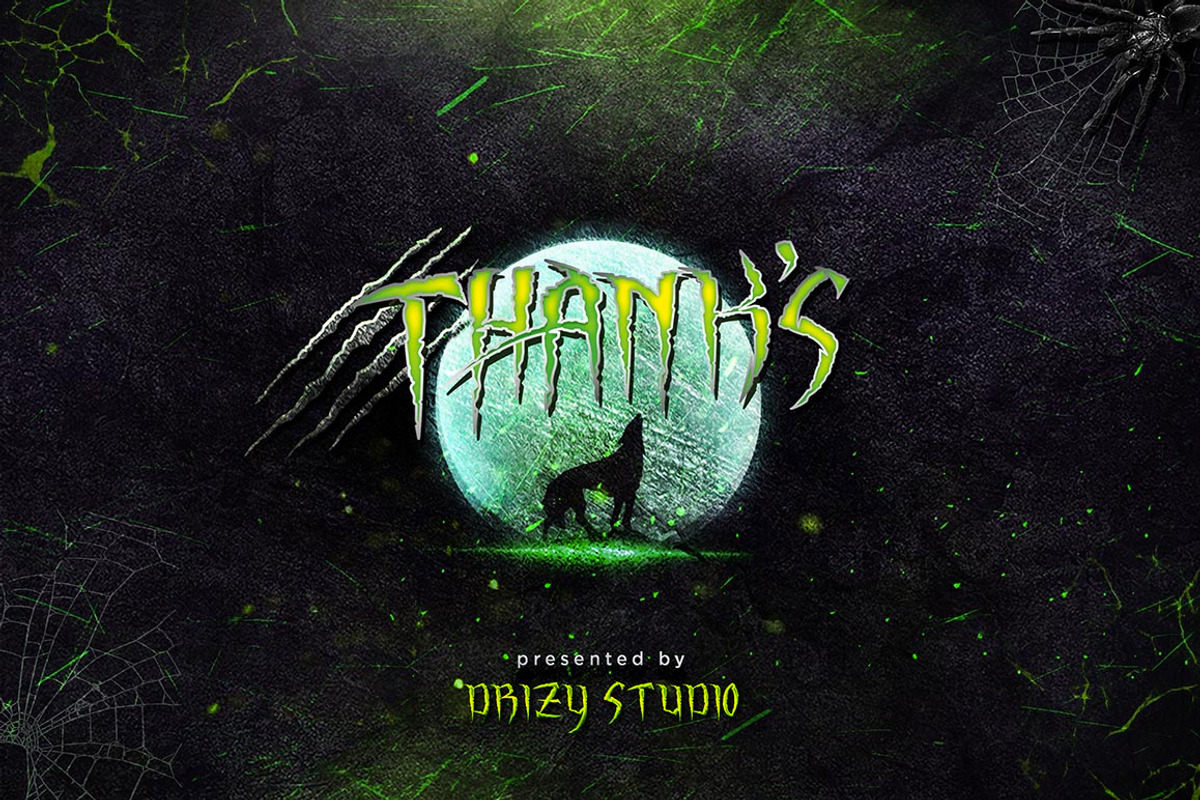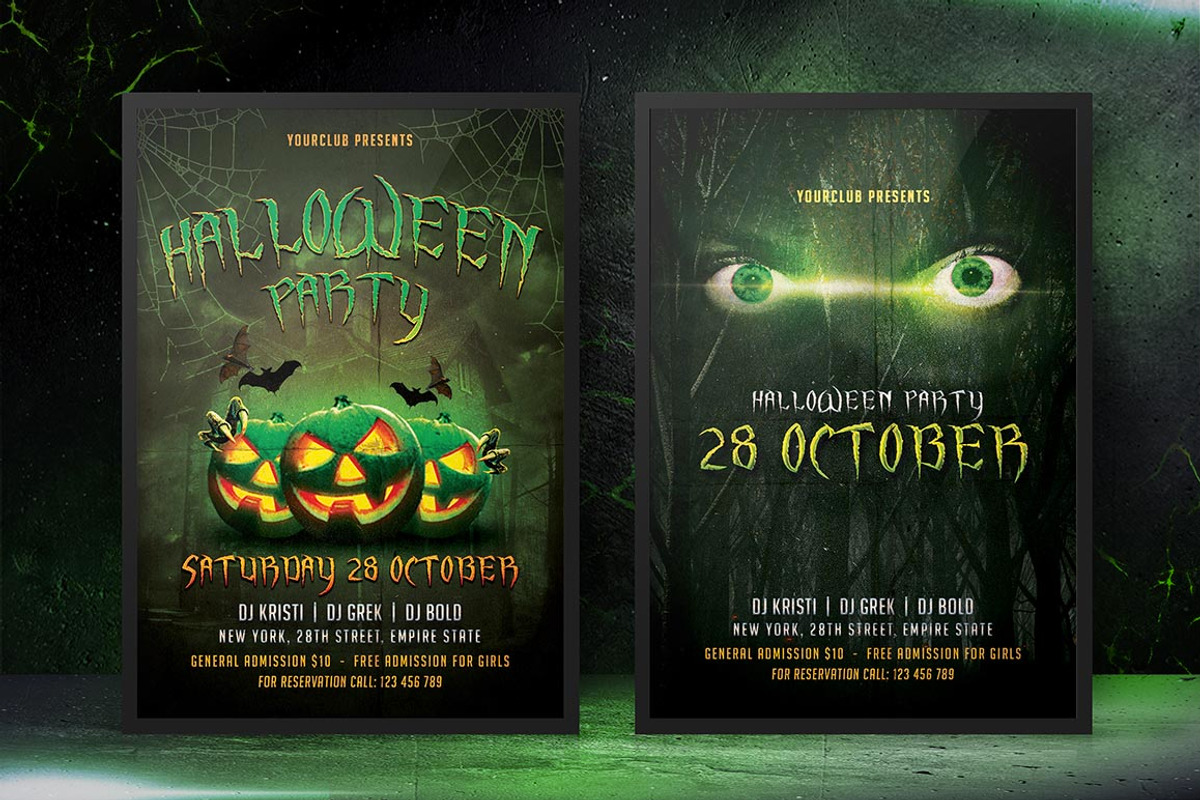
Dark Widow + Bonus Text Effect
Introducing a gothic & horror style typeface with the Dark Widow !! Inspired from a scary monster and traditional gothic capital letters. Font designed highly detailed with scratches on the edges of letters. Stylized in such a way as to imply that it is formed by the claws of a monster, so it looks even horror and creepier!!. This badass font is the perfect for logos, professional horror design, flyer/ poster, branding, packaging, t- shirt, labels, cover album, hardcore, etc. Dark Widow comes with a full set of upper and lower case characters, numbers and punctuation. And to complete the horror we bring you a stylistic alternate, perfectly compliment your primary text. Also included is a bonus extras ‘Text Effect’, to make your design more awesome!!